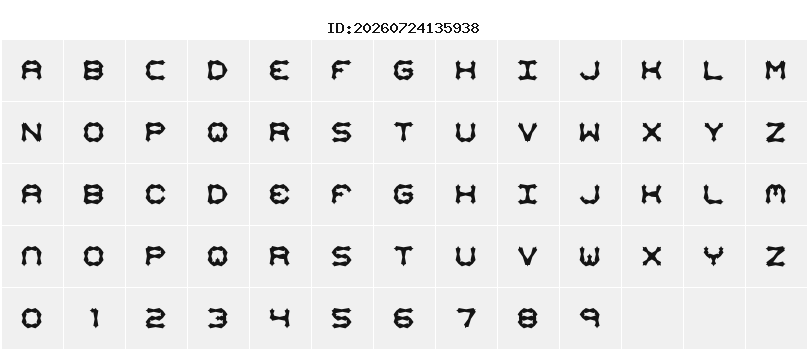
Mishmash ALT2 BRK Preview
• Font Name: Mishmash ALT2 BRK
• Full Font Name: Mishmash ALT2 BRK
About Mishmash ALT2 BRK.ttf
Mishmash ALT2 BRK.ttf is a modern, elegant sans-serif font designed for ultimate readability and visual harmony. Perfect for branding, headlines, web design, and print materials.